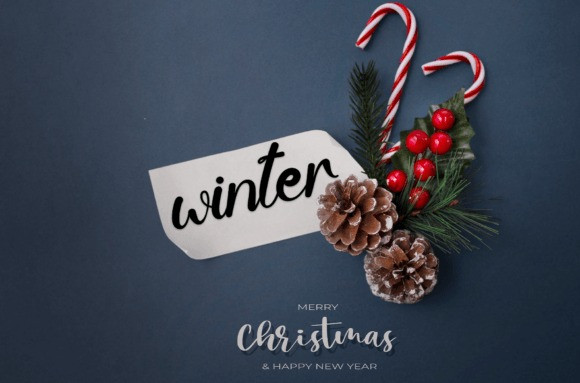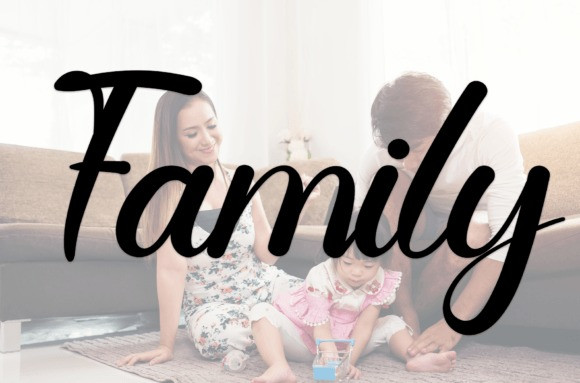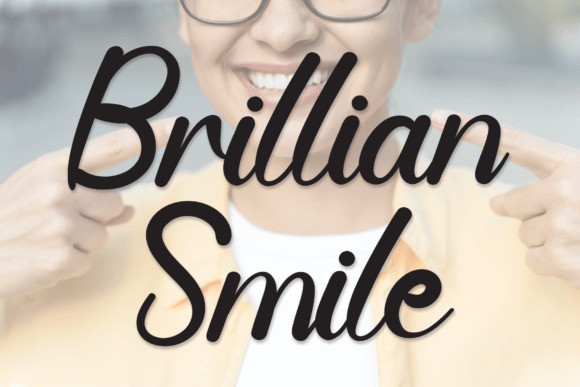
Brillian Smile Font
Brillian Smile Font is a sweet and friendly handwritten font. Fun and relaxed, this font is ideal for writing wedding invitations, cards, or any other design that might need a lovely touch!